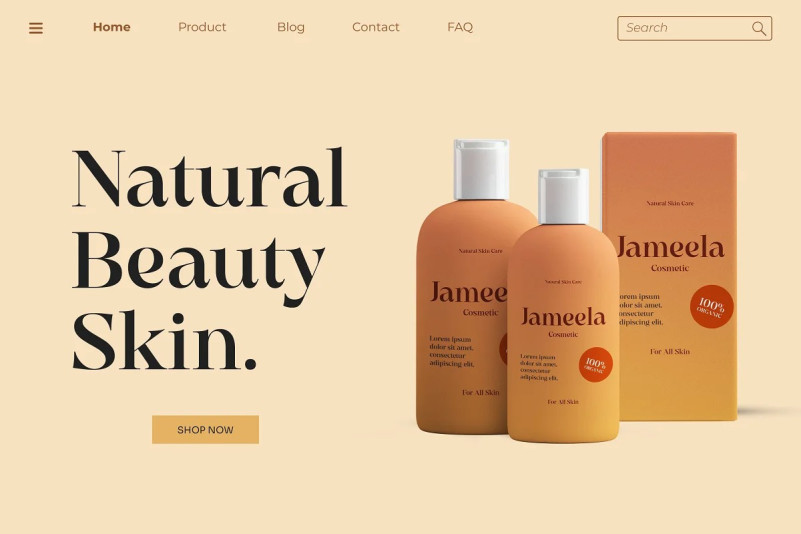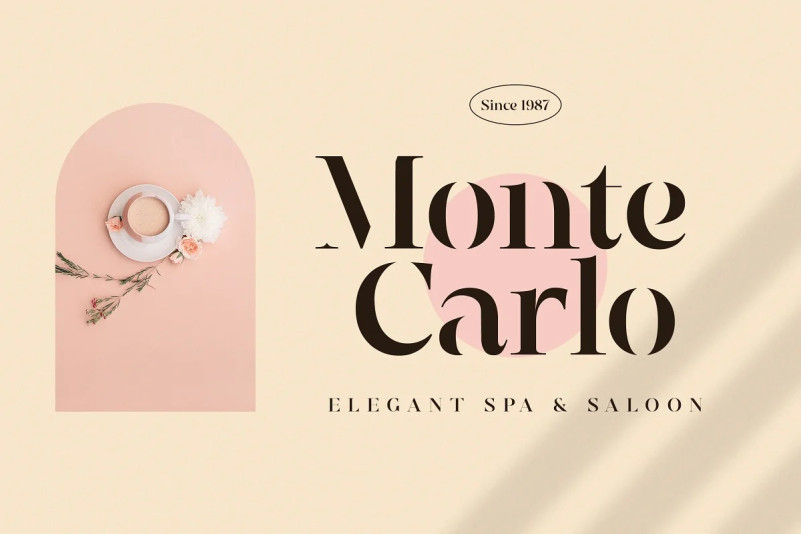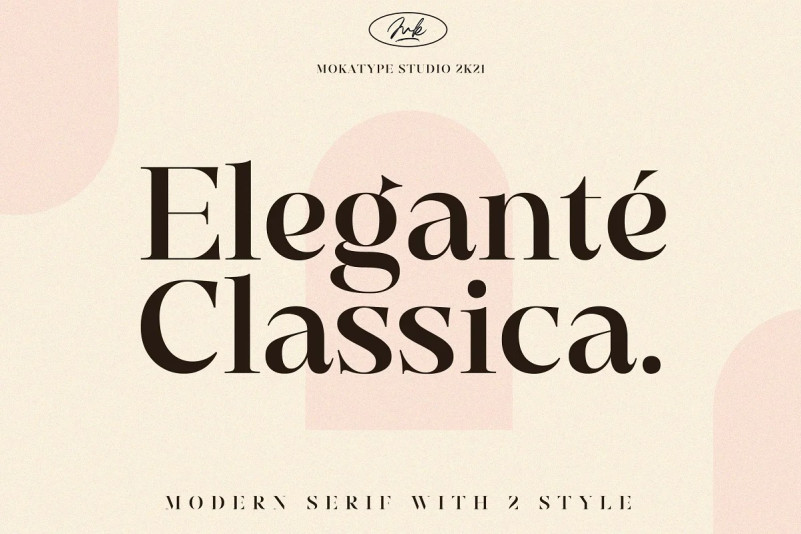
Elegante Classica Font
Elegante Classica – Luxurious Serif Display is an elegant, inspired by the famous minimalist logo, perfect for the purposes of designing templates, brochures, videos, advertising branding, logos and more. Perfect for adding a unique twist to word-mark logos, monograms or pull quotes.